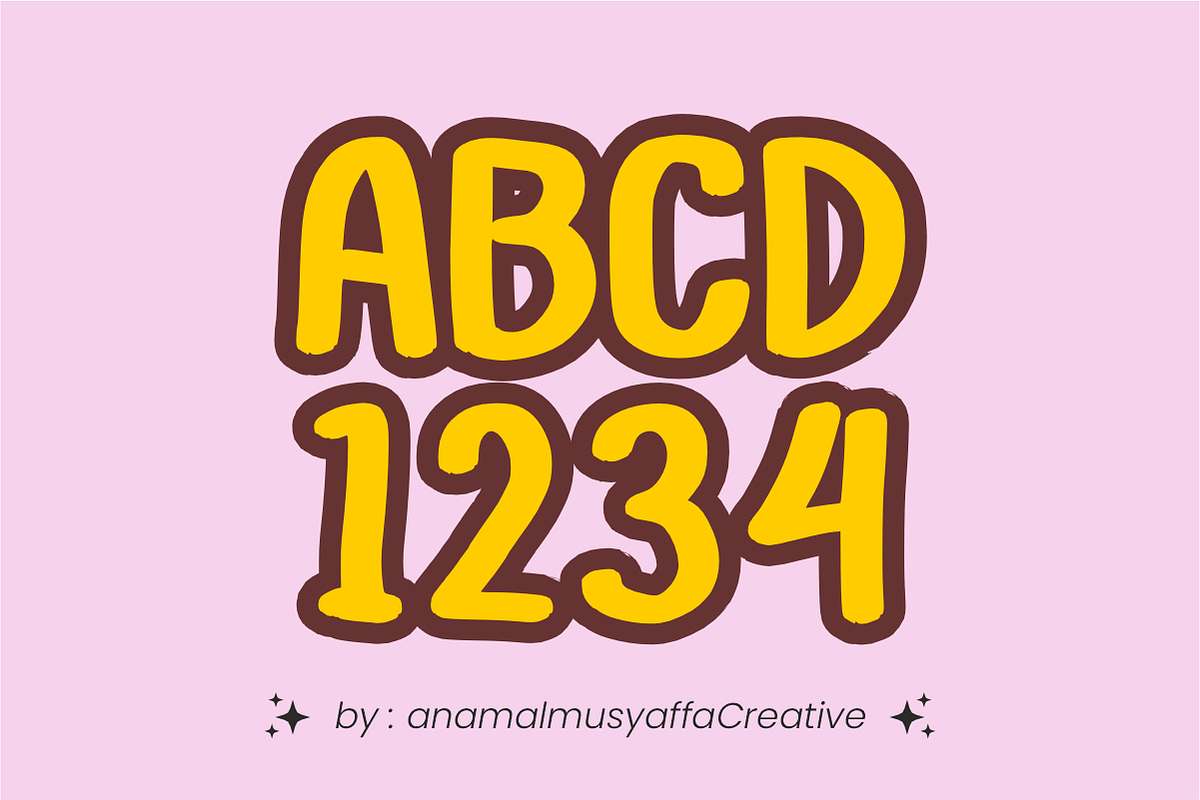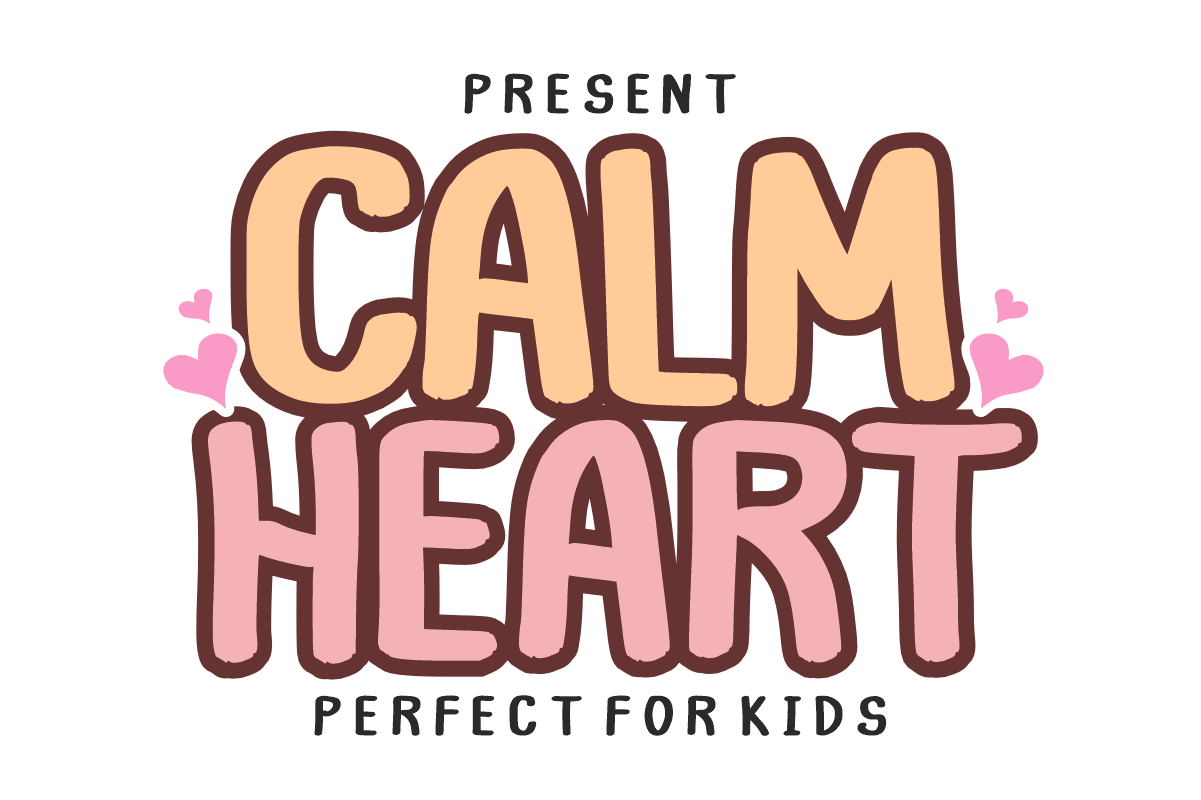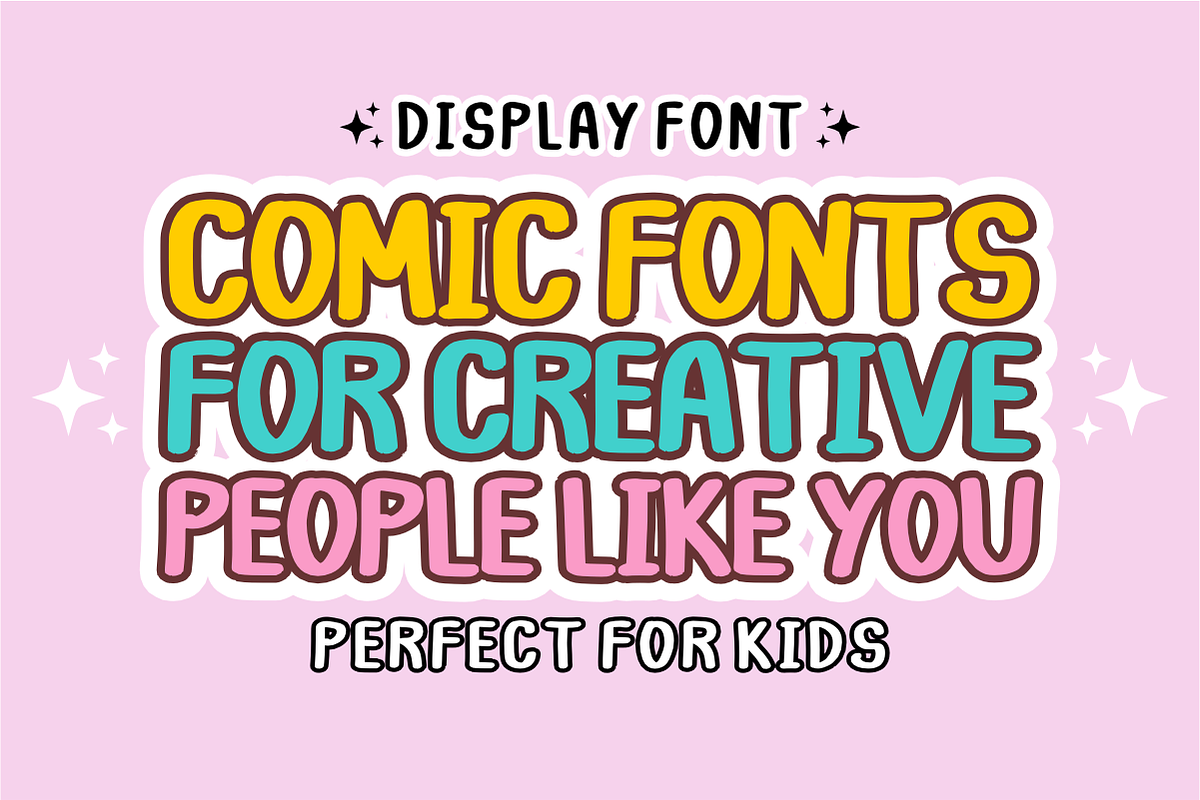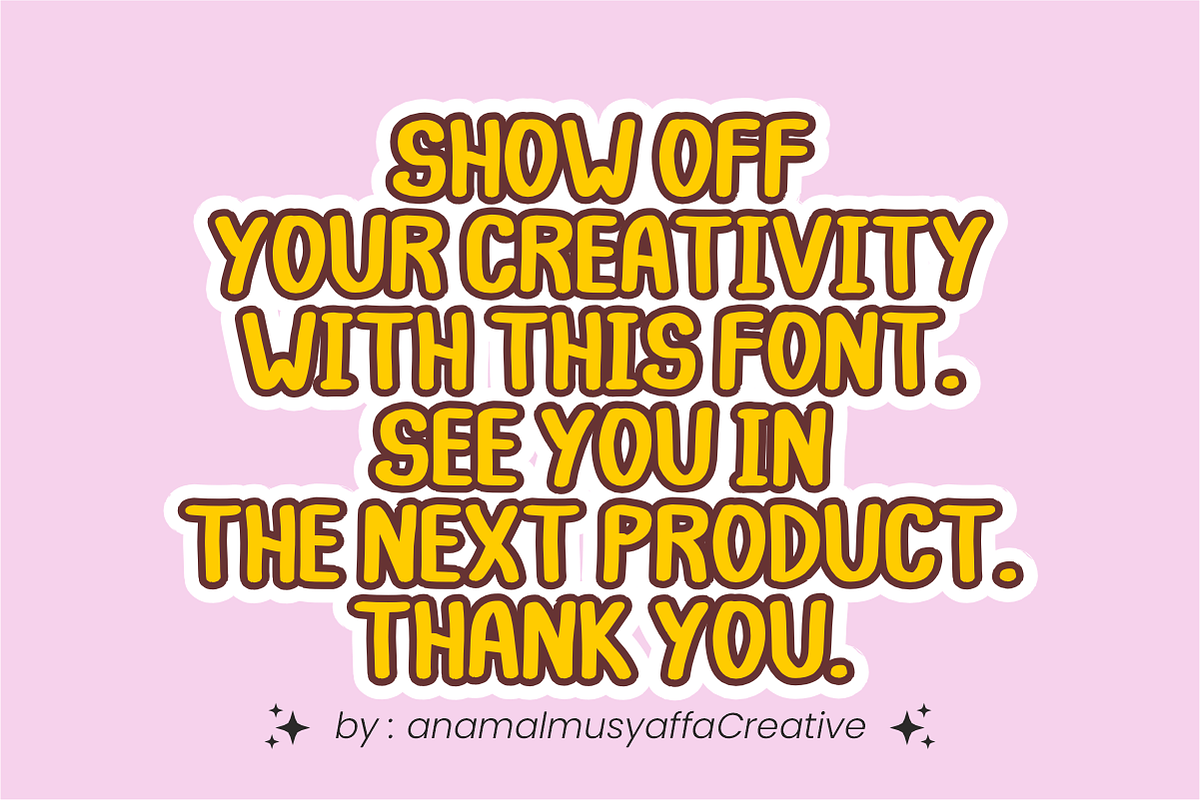
Calm Heart - Cute Display Font
Calm Heart - Cute Playful Display Font
Experience the sweetness and charm of Calm Heart! This delightful display font is designed with a soft, chunky, and hand-drawn feel that is absolutely "Perfect for Kids." Its rounded edges and friendly appearance make every word look warm, approachable, and full of joy.
Whether you are designing for a nursery, creating school materials, or crafting fun stickers, Calm Heart brings a gentle, playful energy to your text. It is highly legible, visually engaging, and fully optimized for seamless performance in both print and digital creative workflows.
All-Caps Character Set (Chunky, friendly uppercase letters)
Numbers & Basic Punctuation (Essential, simple symbols included)
Children’s Book Covers & Playful Editorial Layouts 📚
Nursery Decor, Kids' Party Invitations, & Room Signage 👶
School Projects, Teacher Resources, & Educational Posters 🍎
Cricut, Silhouette, & DIY Craft Sublimation Projects ✂️
Product Packaging, Custom Stickers, & Whimsical Branding 🏷️